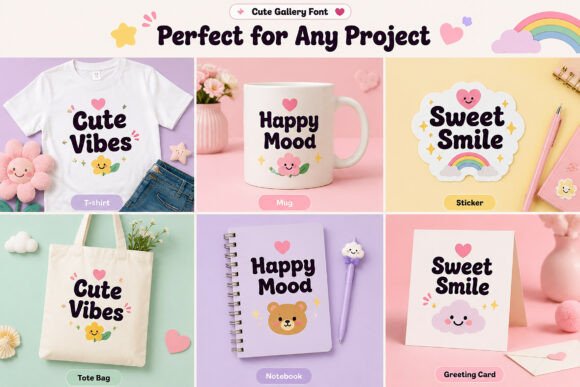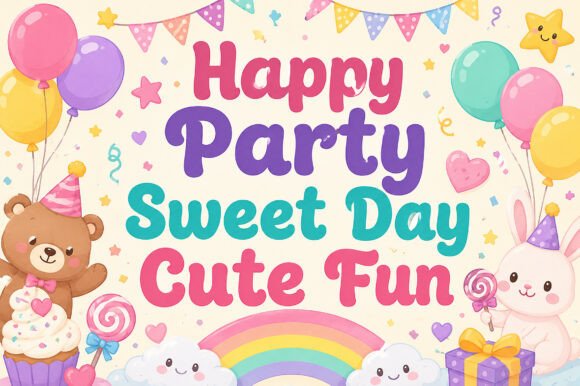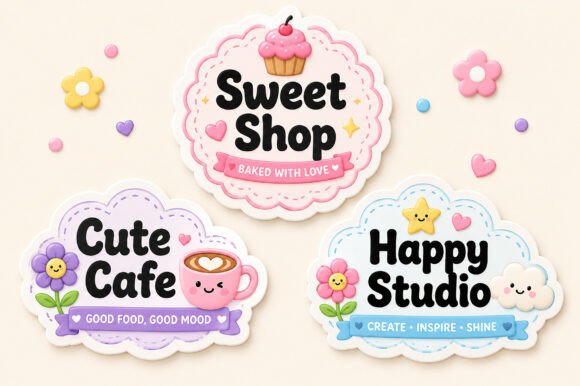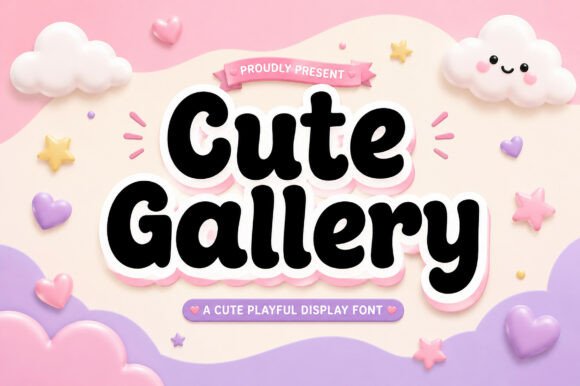
Cute Gallery Font: The Perfect Addition to Your Design Projects
Are you looking for a font that can add a touch of sweetness and playfulness to your design projects? Look no further than Cute Gallery Font! This delightful display font is designed to bring joy and creativity to your work, making it perfect for a wide range of projects, from kids’ designs to product packaging.
A Font with a Bubbly Personality
Cute Gallery Font is a sweet and playful display font that exudes a bubbly, friendly, and cheerful personality. Its smooth rounded shapes and adorable letterforms are sure to capture attention and bring a smile to your face. Whether you’re creating a fun party invitation, a cute bakery logo, or a colorful merchandise design, Cute Gallery Font is the perfect choice.
Cute Gallery Font is versatile and can be used for a wide range of projects, including:
- Kids’ designs: Create fun and engaging designs for kids with Cute Gallery Font. From birthday invitations to stickers and coloring pages, this font is sure to delight.
- Birthday invitations: Make your party invitations stand out with Cute Gallery Font. Its playful and cheerful personality is sure to set the tone for a fun and memorable celebration.
- Stickers: Create adorable stickers with Cute Gallery Font that are perfect for decorating laptops, water bottles, and more.
- Cricut projects: Cute Gallery Font is a great addition to your Cricut projects, from DIY signs to custom vinyl decals.
- Greeting cards: Add a personal touch to your greeting cards with Cute Gallery Font. Its sweet and playful personality is sure to make your cards stand out.
- Social media graphics: Create engaging social media graphics with Cute Gallery Font that are sure to capture attention.
- Product packaging: Add a touch of whimsy to your product packaging with Cute Gallery Font. Its playful personality is sure to delight customers.
- Branding and logos: Create a memorable brand identity with Cute Gallery Font. Its unique and adorable letterforms are sure to make your brand stand out.
- Posters: Create eye-catching posters with Cute Gallery Font that are perfect for advertising events, promoting products, or decorating your workspace.
- Classroom decorations: Add a touch of fun and personality to your classroom decorations with Cute Gallery Font. From bulletin board headers to classroom signs, this font is sure to delight.
- Handmade craft projects: Cute Gallery Font is a great addition to your handmade craft projects, from knitted items to handmade cards.
Why Choose Cute Gallery Font?
So why choose Cute Gallery Font for your design projects? Here are just a few reasons:
- Unique and playful personality: Cute Gallery Font has a one-of-a-kind personality that is sure to capture attention and bring joy to your designs.
- Versatile: Cute Gallery Font can be used for a wide range of projects, from kids’ designs to product packaging.
- Easy to read: Despite its playful personality, Cute Gallery Font is easy to read and understand, making it perfect for designs that require a clear message.
- High-quality: Cute Gallery Font is a high-quality font that is designed to produce crisp and clear results, even at small sizes.
Tips for Using Cute Gallery Font
Here are a few tips for using Cute Gallery Font in your design projects:
- Pair with complementary fonts: Cute Gallery Font pairs well with a variety of fonts, from sans-serif fonts to script fonts. Experiment with different combinations to find the perfect look for your design.
- Use contrasting colors: Cute Gallery Font is a playful font that lends itself well to contrasting colors. Experiment with bright and bold colors to add visual interest to your design.
- Experiment with sizes: Cute Gallery Font can be used at a variety of sizes, from large display fonts to smaller body text. Experiment with different sizes to find the perfect look for your design.
| Font Name | Cute Gallery Font |
| Author | Bundle |
Cute Gallery Font is a sweet and playful display font that is perfect for adding a touch of joy and creativity to your design projects. With its bubbly personality, smooth rounded shapes, and adorable letterforms, this font is sure to capture attention and bring a smile to your face. Whether you’re creating kids’ designs, birthday invitations, stickers, or product packaging, Cute Gallery Font is the perfect choice. So why wait? Download Cute Gallery Font today and start adding a charming and delightful touch to your designs!